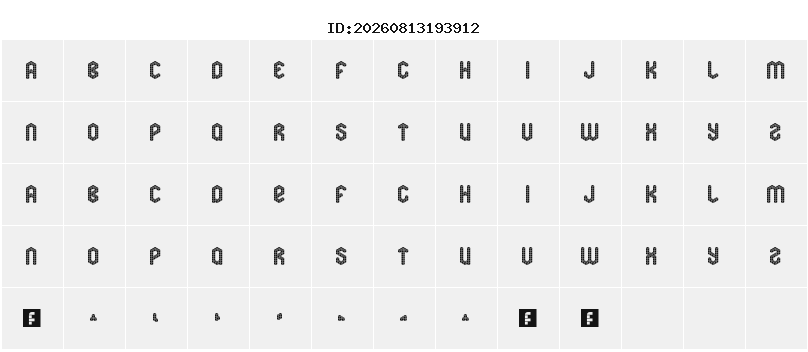
soma Preview
• Font Name: soma
• Font ID: FontStruct soma
• Full Font Name: soma Regular
• PostScript Name: soma
• Character Count: 65
• Designer: Wilson Thomas
About soma.ttf
soma.ttf is a modern, elegant sans-serif font designed for ultimate readability and visual harmony. Perfect for branding, headlines, web design, and print materials.